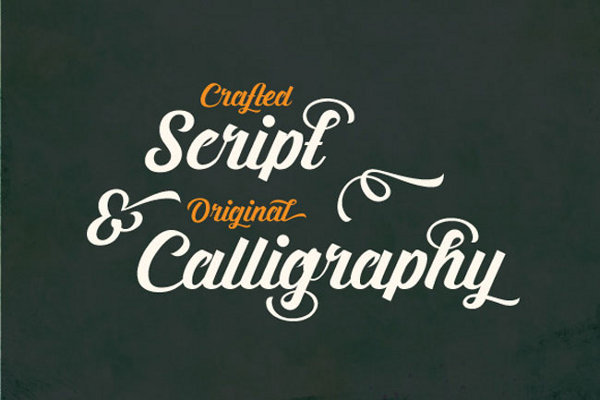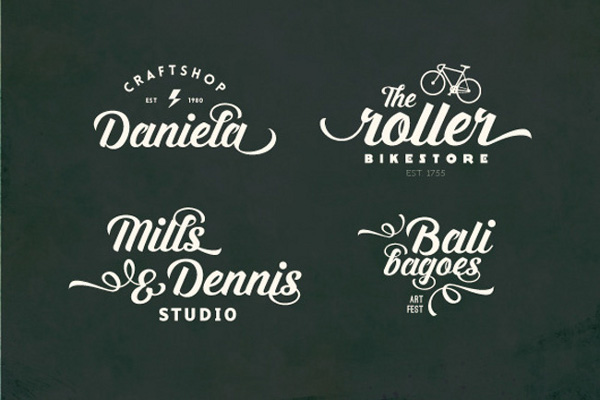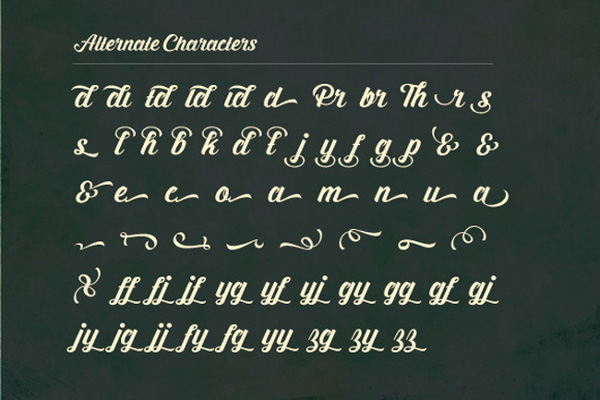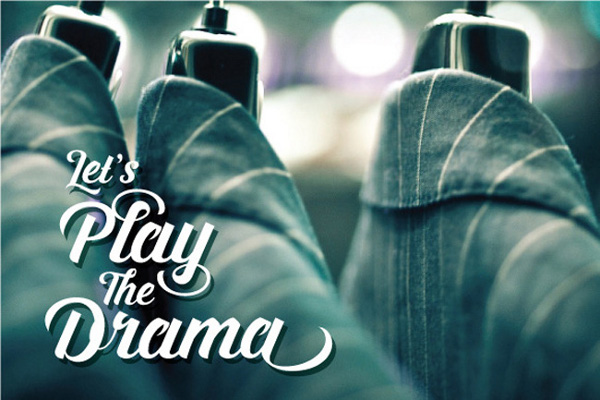
Prada Script, from Artimasa, is a swirl of emotions blended into one beautiful font. It’s bold, classic and tons of fun, all working together in a very vintage style. Perfect for headlines, signs and logos, Prada Script comes with more than 60 character alternates and is available in both desktop and Webfonts versions.